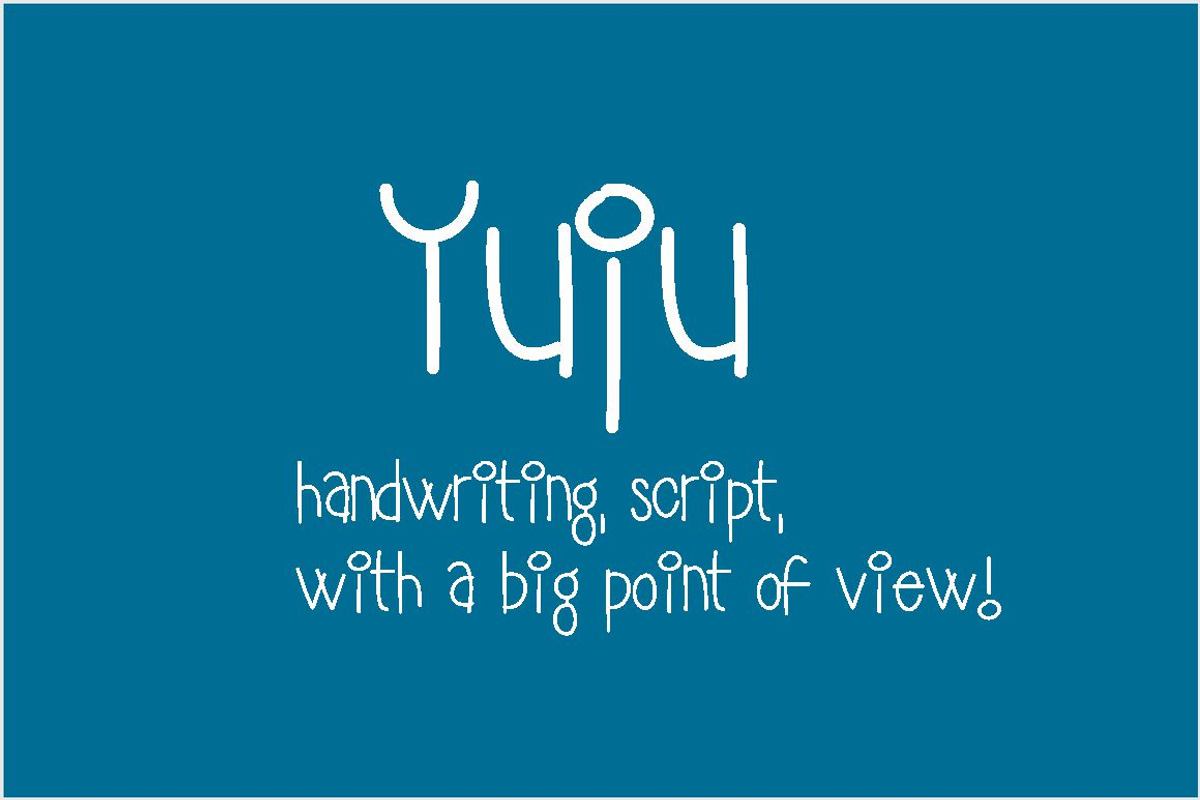
Yuju Font Free Download is a modern, playful, and stylish script typeface designed to add personality and charm to your designs. With its smooth curves and elegant letterforms, this font is perfect for branding, logos, invitations, social media graphics, and personal projects. The fluidity of the font gives it a lively, friendly, and approachable feel, making it great for both casual and creative design work.
Using the Yuju Font Free Download brings a vibrant, handwritten touch to your typography. Whether you're designing a fun logo, crafting invitations for a special event, or working on marketing materials, this font adds a unique flair and charm to your designs.